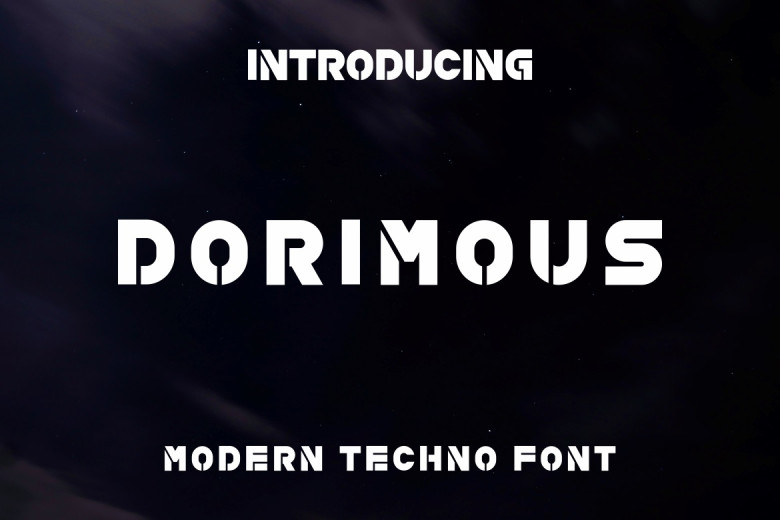
Dorimous Font
Dorimous font is futuristic, stylish and fashionable – an ideal font choice for any project no matter the topic or subject matter. This font can elevate any design.
Dorimous Techno Font